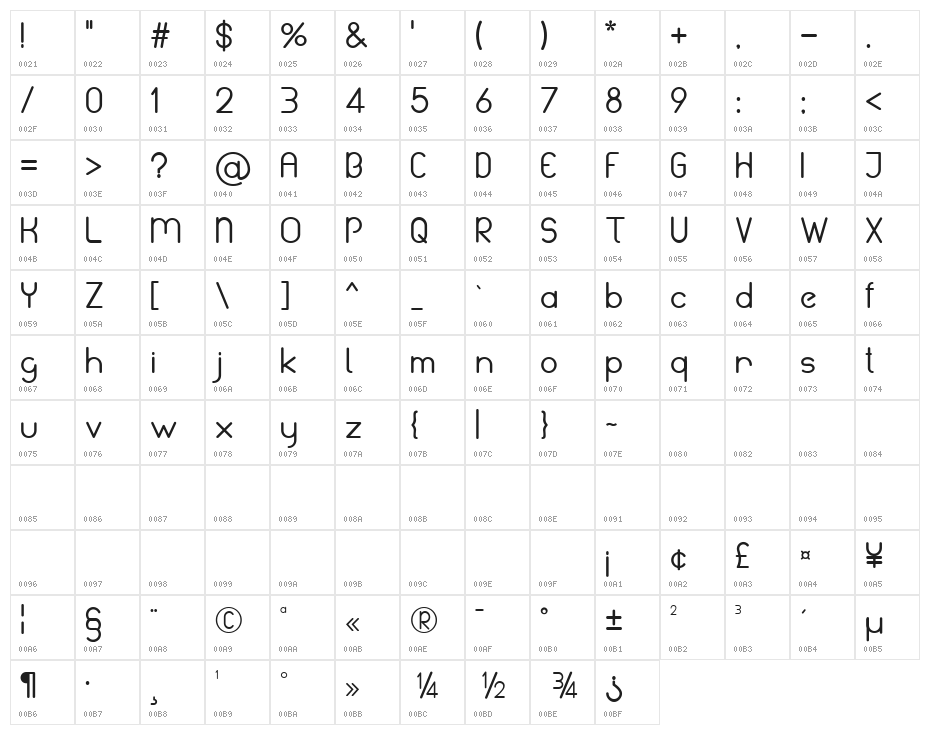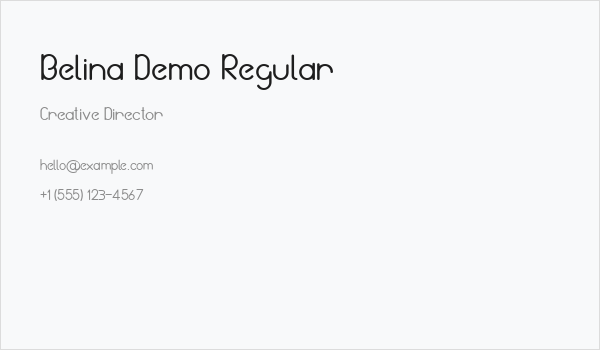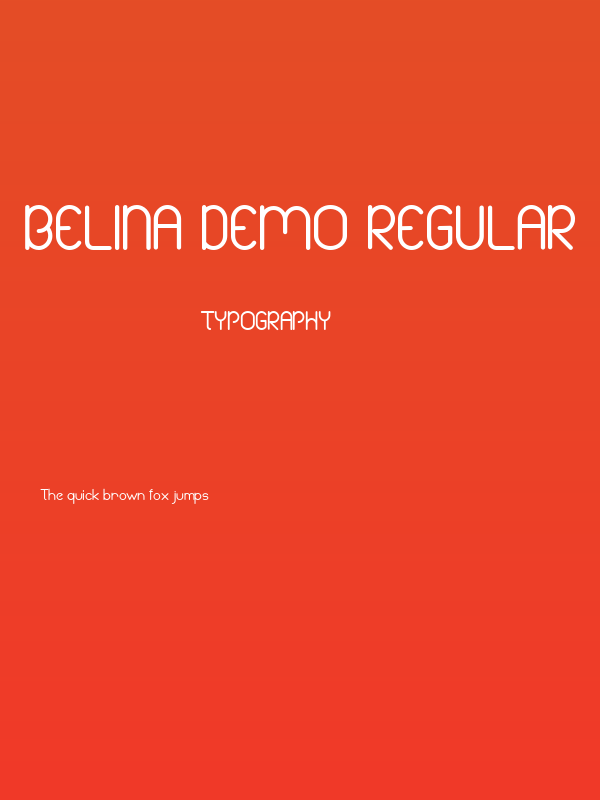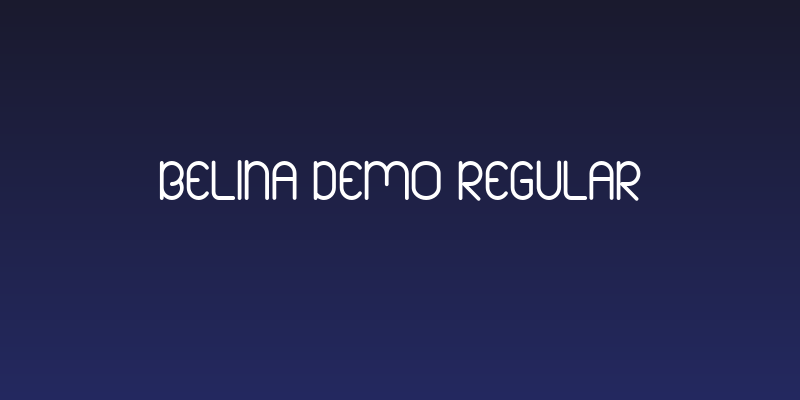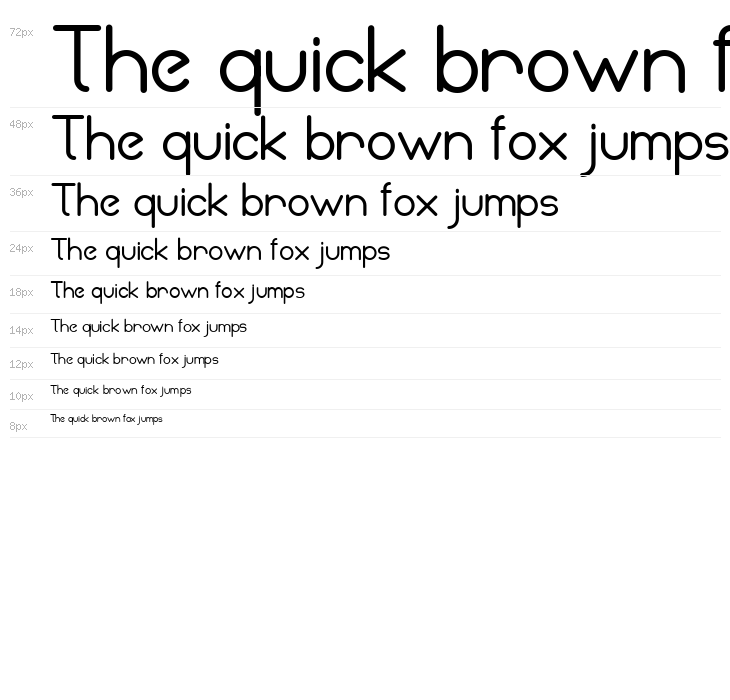
Belina Demo Regular Font
Belina Demo Regular Description
This font features a modern, rounded sans-serif design with clean lines and a geometric structure. The characters are evenly spaced, providing a balanced and harmonious appearance. The uppercase letters maintain a consistent height, while the lowercase letters have a friendly and approachable style. The numerals are clear and legible, making them suitable for various applications. Special characters are well-integrated, maintaining the overall aesthetic. This font is versatile, offering a contemporary look that is both professional and stylish.
| Proposed Projects | Ideal for branding, advertising, web design, and print materials where a modern and approachable look is desired. |